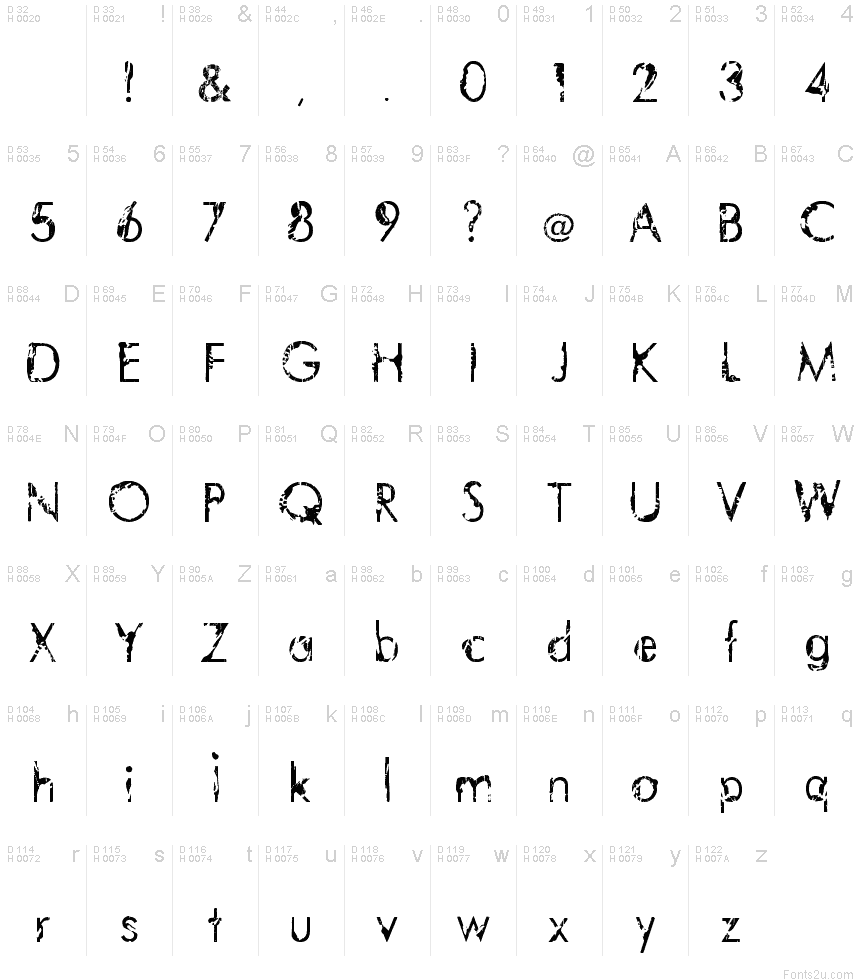
Vtks Paradoxo by Douglas Vitkauskas is a free eroded display font with tall, uneven letters, abrupt changes in stroke width, and surfaces cut through by scratches, chips, and scattered gaps. Its silhouettes stay simple and forceful, but the damaged surfaces make the lettering look weathered, handmade, and slightly unruly.
Used to build a distressed title or worn sign, it suits horror posters, underground music artwork, and gritty game graphics. It has the bite of damaged print. On merchandise or album packaging, the broken marks can echo cracked paint, photocopied textures, or abrasive black-and-white illustration, turning the lettering into part of the artwork itself.